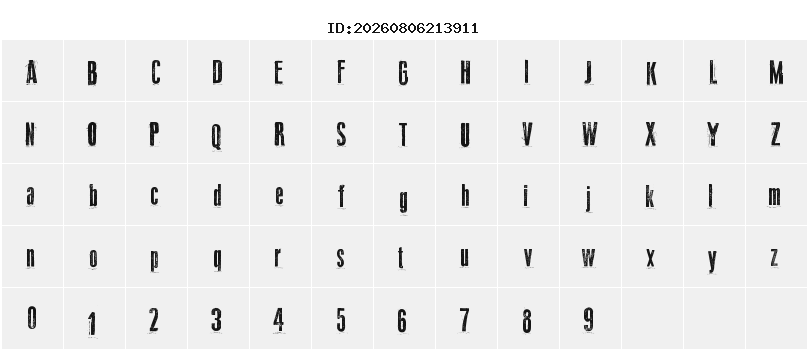
Odd Press.ttf is a modern, elegant sans-serif font designed for ultimate readability and visual harmony. Perfect for branding, headlines, web design, and print materials.